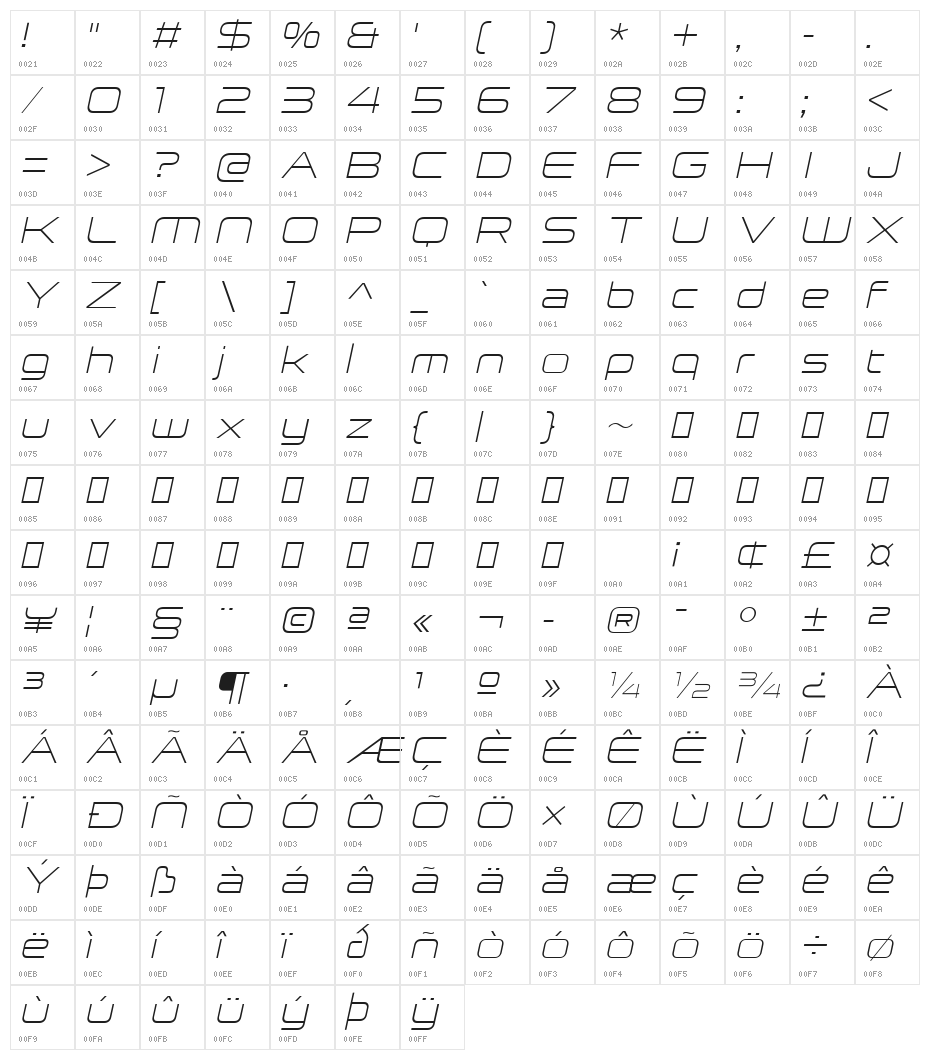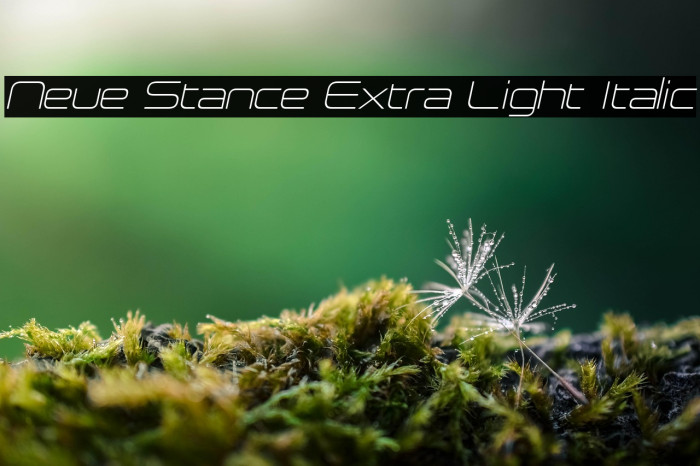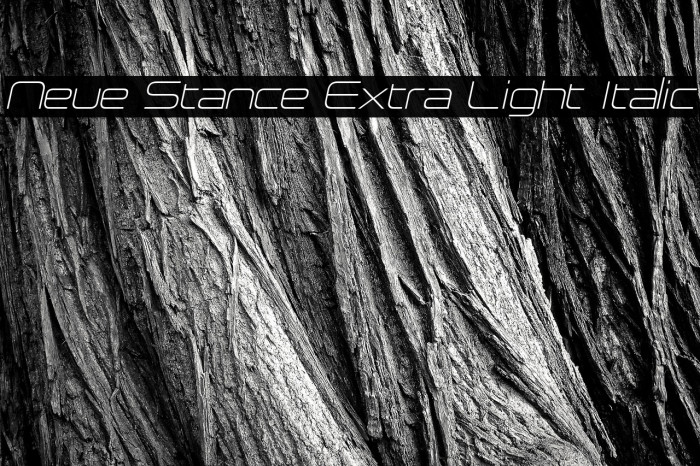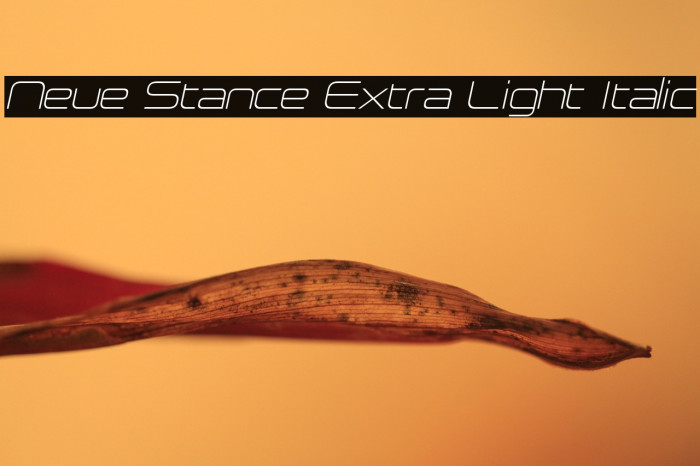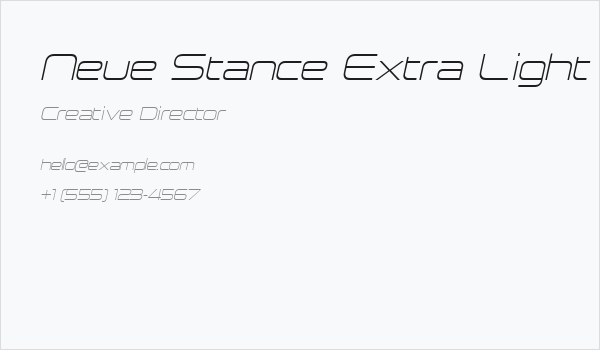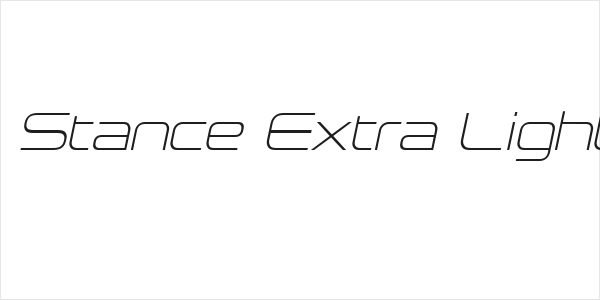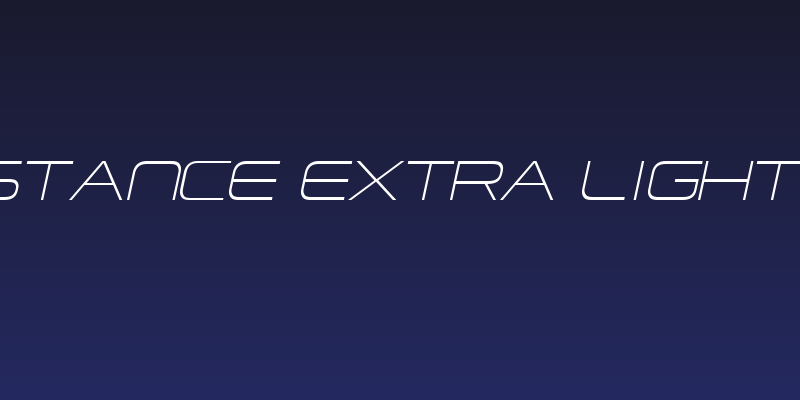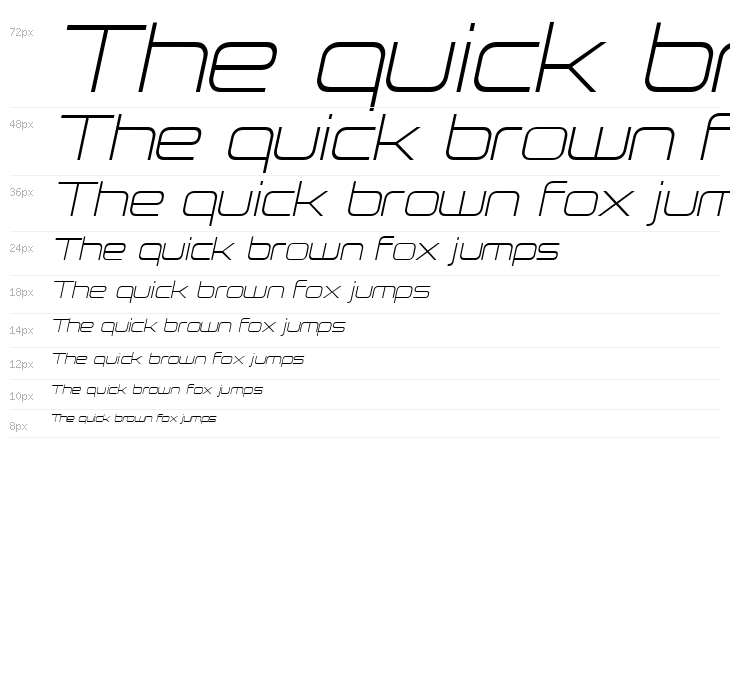
Neue Stance Extra Light Italic Font
Neue Stance Extra Light Italic Description
This font features a sleek, modern design with an italicized style that gives it a dynamic and forward-leaning appearance. The characters are crafted with an extra-light weight, providing a delicate and airy feel. The geometric structure of the letters is evident, with clean lines and a minimalistic approach that enhances readability. The font maintains a consistent stroke width, contributing to its low contrast. Its futuristic aesthetic makes it suitable for contemporary design projects, where a sense of innovation and elegance is desired.
| Proposed Projects | Ideal for tech branding, modern advertising, innovative product packaging, and sleek website headers. |